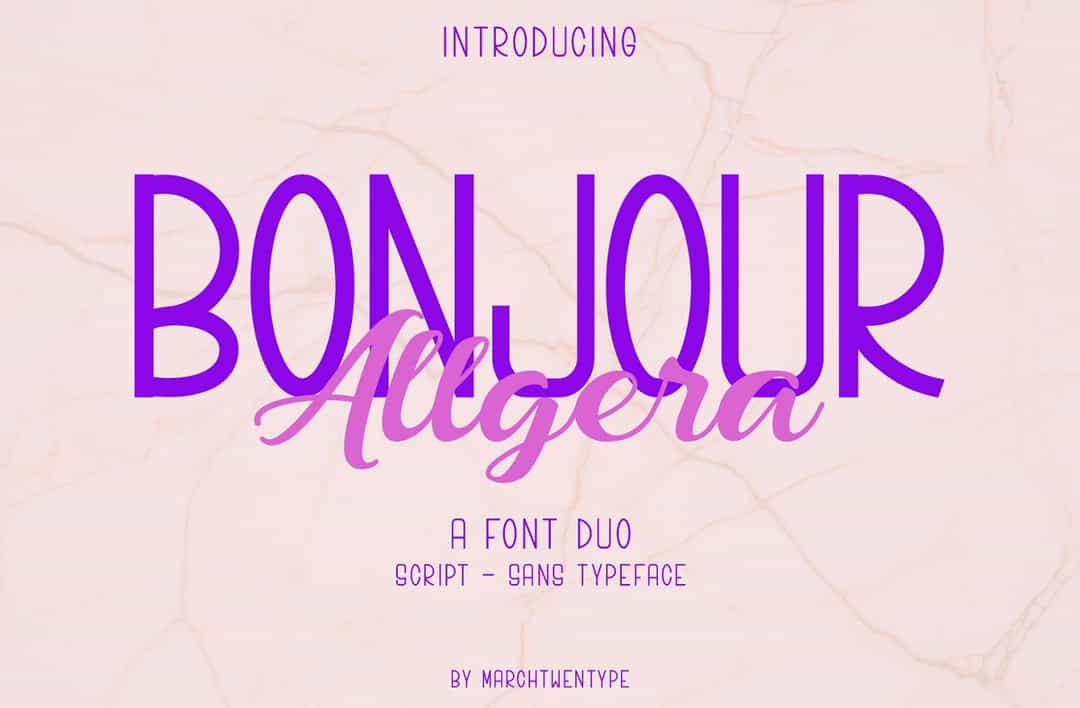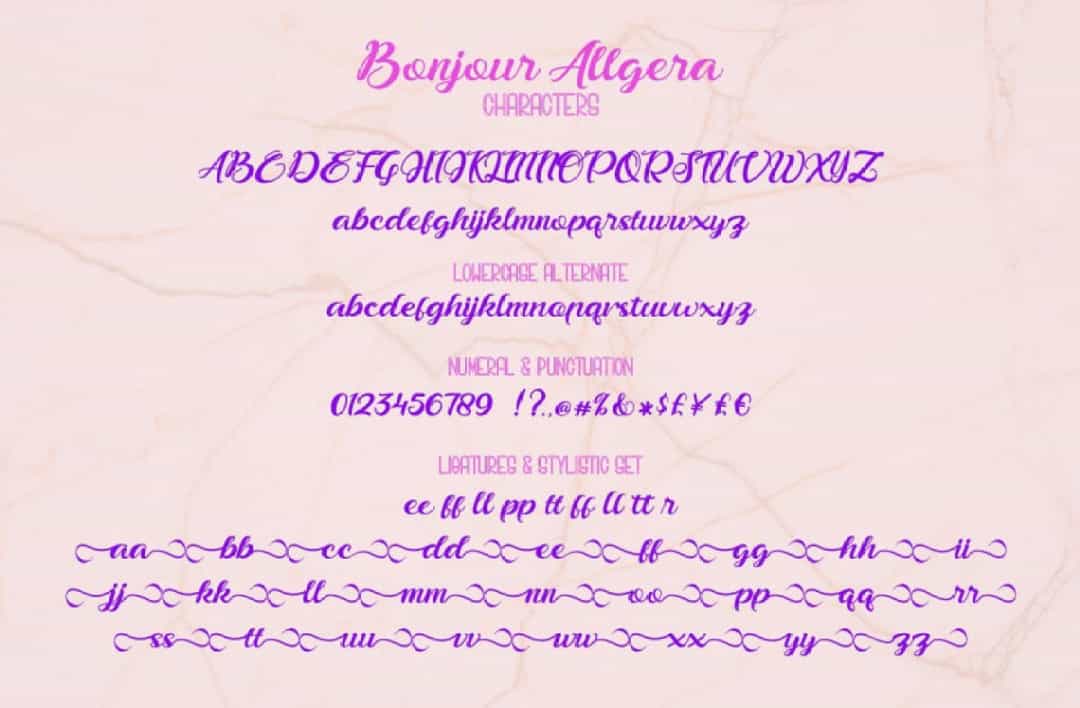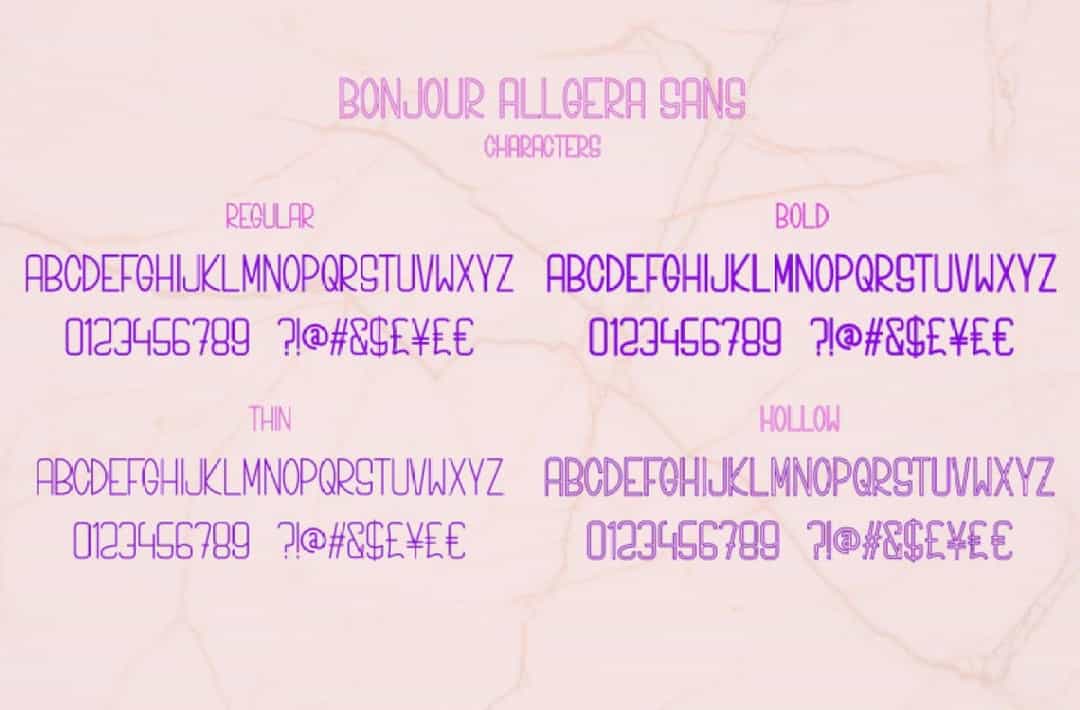
Bonjour Allgera is a script and sans serif typeface that looks more like a script typeface with a more rounded appearance. It’s calligraphy style makes it appear royal, and can be used for any design that requires an eye-catching but royal kind of font.